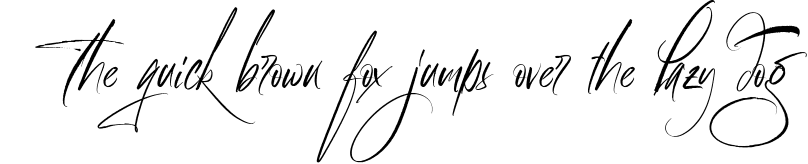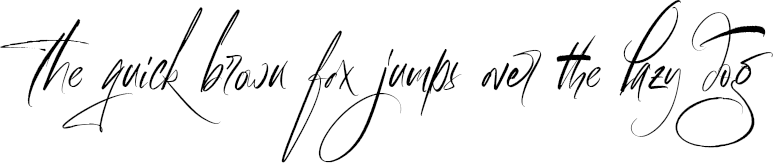
Parte Handwritten
Parte is a organic handwritted font inspired by natural brush typography. Written in rapid motion using a slightly dry brush pen. This will give you a fresh and elegant design. Parte comes with uppercase and lowercase sets, numbers, alternative styles for some lowercase characters are also available which make your text and designs more attractive.
• Included multilingual support and special ligatures